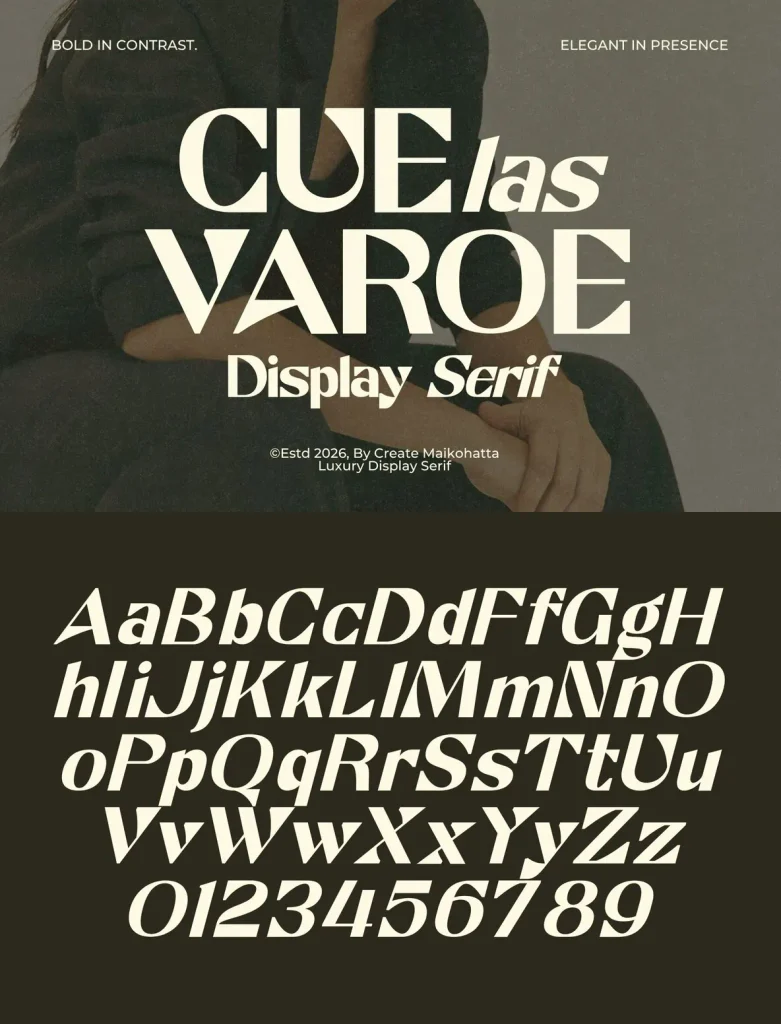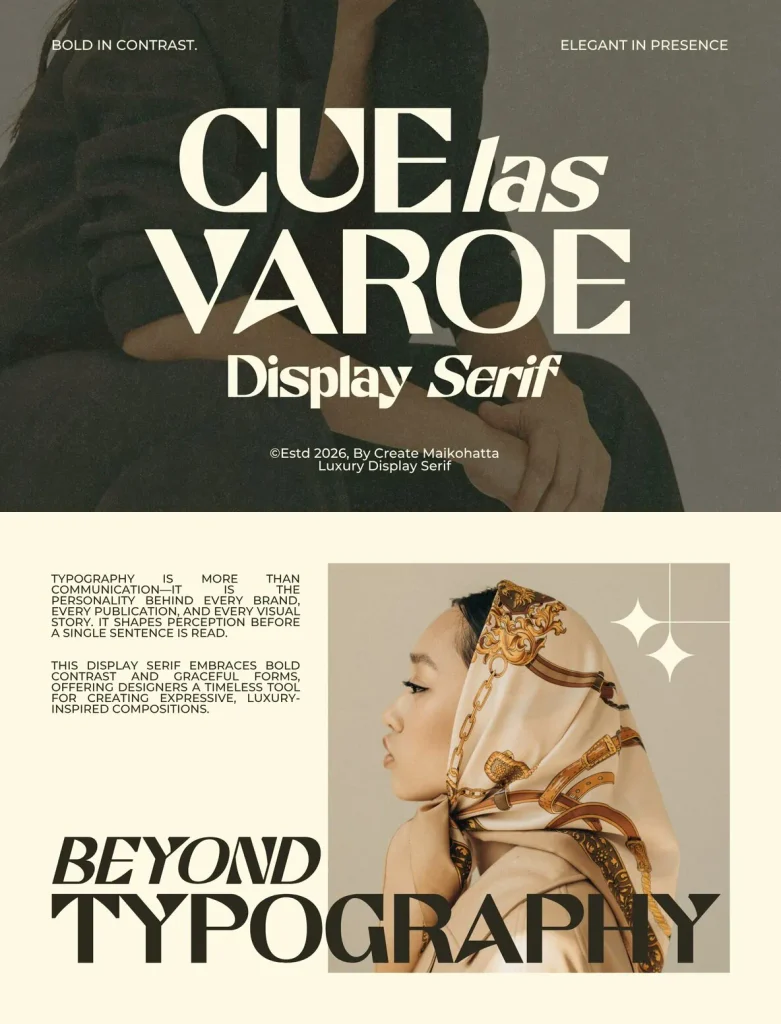
Cuelas — Luxury With Editorial Poise
Introducing Cuelas — Luxury Display Serif, a bold and elegant display serif typeface designed to make a lasting impression. With dramatic high-contrast strokes, refined curves, and stylish letterforms, Cuelas brings timeless sophistication to a contemporary editorial aesthetic. Its distinctive character suits luxury branding, fashion campaigns, premium packaging, magazine headlines, beauty products, logos, and upscale marketing materials.
Created to stand out at large sizes, Cuelas delivers strong readability while adding exclusivity and confidence to each design. Use it for a modern fashion identity, an elegant editorial layout, or any creative project that calls for refined luxury and clear visual impact. Cuelas gives premium typography a poised, memorable voice.